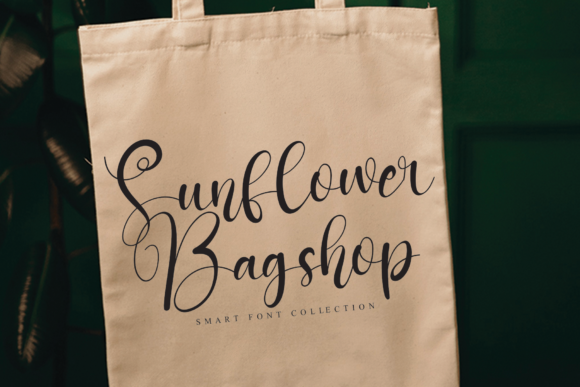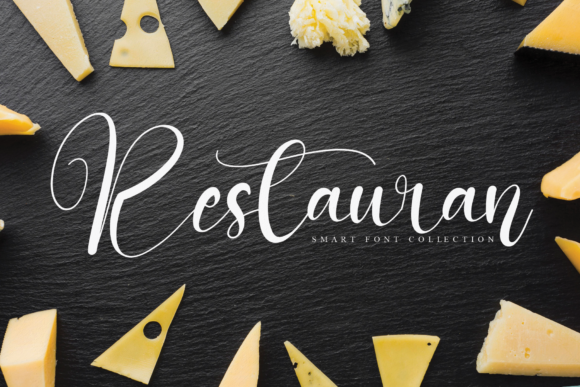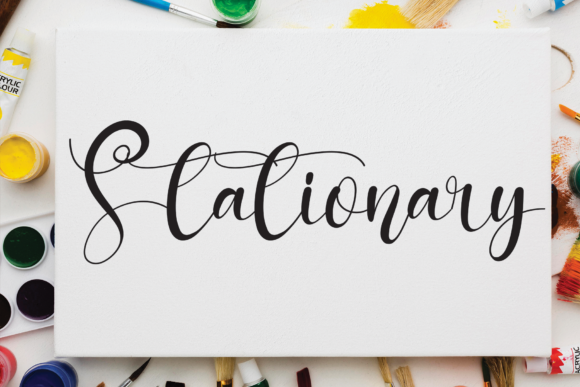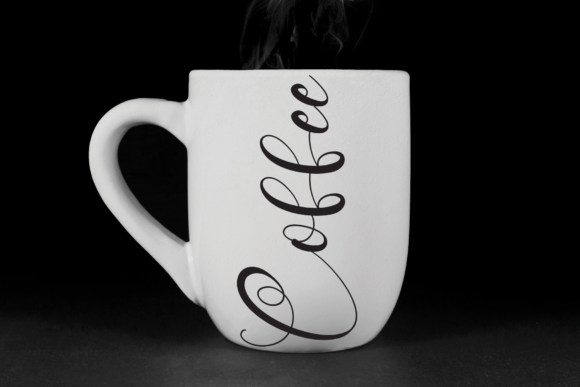
Introducing Handsome Font: The Sweet and Cursive Handwritten Font for Your Design Needs
Are you a designer or crafter looking for a font that can add a touch of romance and joy to your projects? Look no further than Handsome Font, a sweet and cursive handwritten font that is sure to impress. With its gentle and elegant strokes, Handsome Font is the perfect addition to any design idea, from wedding invitations to branding materials, and everything in between.
The Characteristics of Handsome Font
Handsome Font is a unique and beautiful font that boasts a range of characteristics that make it stand out from the crowd. Here are just a few of the features that make Handsome Font so special:
- Sweet and Cursive: Handsome Font is a cursive handwritten font that is sweet and charming. Its flowing strokes and elegant letters make it perfect for designs that require a touch of sophistication and romance.
- Gentle and Elegant: The strokes of Handsome Font are gentle and elegant, making it perfect for designs that require a soft and delicate touch.
- Versatile: Handsome Font is a versatile font that can be used on a wide range of design ideas, from wedding invitations to branding materials, and everything in between.
Uses for Handsome Font
Handsome Font is a versatile font that can be used on a wide range of design ideas. Here are just a few examples of how you can use Handsome Font in your designs:
- Wedding Invitations: Handsome Font is perfect for wedding invitations, adding a touch of romance and elegance to your designs.
- Branding Materials: Handsome Font can be used in branding materials, such as logos, business cards, and letterheads, to add a touch of sophistication and elegance.
- Social Media Graphics: Handsome Font can be used to create social media graphics, such as Facebook posts and Instagram stories, that are eye-catching and engaging.
- Digital and Print Materials: Handsome Font can be used in a wide range of digital and print materials, including brochures, flyers, and posters.
Why Choose Handsome Font?
There are many fonts available that can add a touch of elegance and sophistication to your designs. So why choose Handsome Font? Here are just a few reasons why Handsome Font stands out from the crowd:
- Unique and Beautiful: Handsome Font is a unique and beautiful font that is sure to impress. Its sweet and cursive strokes make it perfect for designs that require a touch of romance and elegance.
- Easy to Read: Handsome Font is easy to read, making it perfect for designs that require a clear and concise message.
- Versatile: Handsome Font is a versatile font that can be used on a wide range of design ideas, making it a great addition to any design library.
Tips for Using Handsome Font
Here are just a few tips for using Handsome Font in your designs:
- Use it with a Simple Background: Handsome Font looks best with a simple background that allows the font to take center stage.
- Experiment with Colors: Handsome Font can be used with a wide range of colors, so don’t be afraid to experiment and find the perfect color for your design.
- Pair it with Other Fonts: Handsome Font can be paired with other fonts to create a unique and eye-catching design.
In conclusion, Handsome Font is a sweet and cursive handwritten font that is sure to add a touch of romance and joy to your designs. With its gentle and elegant strokes, Handsome Font is perfect for a wide range of design ideas, from wedding invitations to branding materials, and everything in between. So why not give Handsome Font a try and see how it can elevate your designs to the next level?